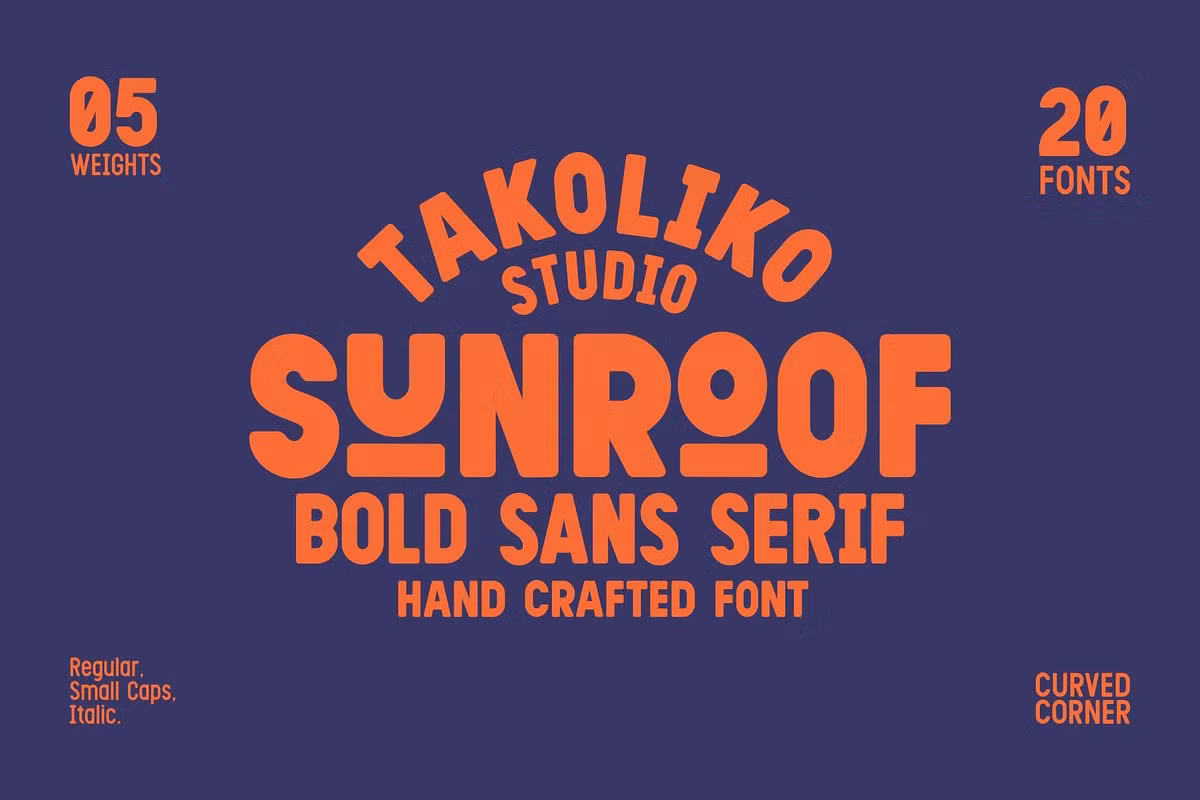
Sunroof Font – Bold Sans Serif Free Download is a strong and stylish typeface designed to command attention with clean lines and a confident presence. With its bold weight and minimalistic structure, Sunroof is ideal for headlines, modern branding, posters, product packaging, web design, and tech-focused visuals.
Its geometric style ensures clarity and impact, making it perfect for both print and digital projects where boldness and simplicity are key. Sunroof balances a modern edge with timeless appeal.